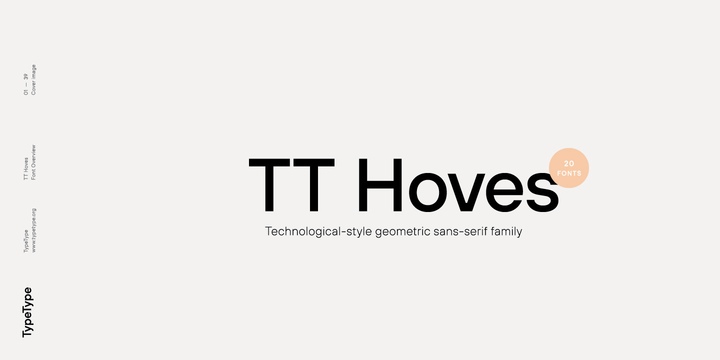
TT Hoves Font
TT Hoves Font is perfect for contemporary tech branding, modern corporate identity, sleek web design interfaces, professional business communications, minimalist packaging layouts, architectural firm signage, clean editorial design, sophisticated logo creation, modern magazine typography, premium service branding, streamlined app interfaces, and elegant storytelling applications.
TT Hoves Font is exciting because it represents the perfect evolution of neo-grotesque typography with meticulously balanced letterforms that achieve ideal harmony between geometric precision and human warmth, making it the ultimate choice for brands seeking contemporary sophistication with timeless appeal and exceptional readability.
The TT Hoves Font family includes comprehensive variations: Thin, Extra Light, Light, Regular, Medium, Bold, Extra Bold, Black, and matching Italic styles, providing designers with a complete modern typography system to create sophisticated hierarchies that work seamlessly across all contemporary design applications.
The font's expertly crafted letterforms represent years of typographic refinement, with optimized curves and perfectly balanced proportions that ensure outstanding performance across all modern applications. Each character demonstrates meticulous attention to detail and design intelligence that elevates ordinary text into extraordinary communication.
TT Hoves Font excels in creating sophisticated brand experiences for forward-thinking businesses across technology, design, and professional services sectors. Its clean, authoritative appearance communicates competence and innovation, making it perfect for companies seeking contemporary relevance with timeless professional appeal.
Professional designers treasure how TT Hoves Font maintains its distinctive character while providing exceptional versatility across diverse modern applications. The extensive weight range ensures optimal performance from delicate mobile interfaces to bold environmental graphics, maintaining consistent quality and sophisticated aesthetic appeal.
This remarkable typeface brings instant contemporary credibility to modern ventures and design-conscious businesses. From tech startups to architectural firms, TT Hoves Font creates lasting impressions that communicate precision, sophistication, and the refined excellence that defines outstanding contemporary design and professional communication.